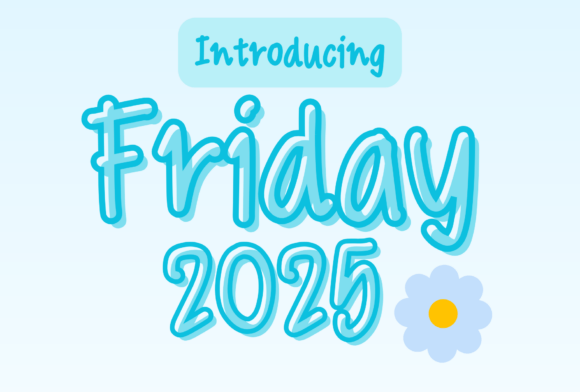
Introducing Friday 2025 Font: The Ultimate Handwritten Font for Digital Creations
In the realm of digital design, the right font can make all the difference. It can elevate your project from ordinary to extraordinary, adding a personal touch that resonates with your audience. If you’re on the hunt for a font that combines neatness, versatility, and a dash of personality, look no further than the Friday 2025 Font. This delightful handwritten font is perfect for a myriad of projects, from digital note-taking to crafting beautiful visual content. In this article, we’ll dive deep into the features and benefits of the Friday 2025 Font, exploring how it can become an indispensable part of your creative toolkit.
What is Friday 2025 Font?
Friday 2025 is a charming handwritten font designed with both functionality and aesthetics in mind. Its neat and clean appearance makes it highly legible, while its personal touch adds warmth and character to any text. This font is not just a typeface; it’s a way to infuse your digital creations with a sense of personality and approachability.
Versatility at Its Best
One of the standout features of the Friday 2025 Font is its incredible versatility. Whether you’re working on a digital project or a physical one, this font adapts seamlessly. Here are some of the many projects where Friday 2025 shines:
- Digital Note-taking: For those who love to take digital notes on their iPads or tablets, Friday 2025 is a game-changer. It brings a personal and organized feel to your notes, making study sessions or work notes more engaging and effective.
- Procreate and Digital Art: Artists and designers using Procreate will find Friday 2025 to be a fantastic addition to their toolkit. It can be used for adding text to artwork, creating quotes, or designing digital planners.
- Blog Posts and Articles: For bloggers and writers, this font offers a fresh and modern look. It can help set the tone for your content, making it more inviting to readers.
- Logos and Branding: For businesses looking to create a logo or revamp their branding, Friday 2025 offers a unique and memorable style that can help a brand stand out.
- Digital Planners, Invitations, and Greeting Cards: The font’s friendly and approachable vibe makes it perfect for creating digital planners, invitations, and greeting cards that feel personal and special.
- Photo Albums and Decorations: When it comes to digital photo albums or decorations, Friday 2025 can add a warm, personal touch, making your memories even more precious.
Supporting Multiple Languages
In a globalized world, content often reaches a diverse audience. The Friday 2025 Font is designed with this in mind, supporting multiple languages. This feature makes it an excellent choice for international brands, bloggers with a global following, or anyone looking to create content in multiple languages.
Perfect for iPads and GoodNotes
With the rise of digital note-taking and planning, tools like iPads and GoodNotes have become increasingly popular. The Friday 2025 Font is optimized for use on these platforms, offering a seamless experience for users. Its clean lines and neat appearance make it particularly well-suited for digital handwriting and typing on these devices.
Adding a Personal Touch to Your Designs
The true power of the Friday 2025 Font lies in its ability to add a personal touch to any design. In a digital age where communication can sometimes feel impersonal, this font helps you connect with your audience on a more personal level. Whether you’re creating educational content, personal projects, or professional materials, Friday 2025 brings a sense of warmth and approachability that’s hard to achieve with more traditional fonts.
Why Choose Friday 2025 Font?
With so many fonts available, why should you choose Friday 2025? Here are a few compelling reasons:
- Legibility: Despite its handwritten nature, Friday 2025 is highly legible, making it suitable for both digital and print projects.
- Versatility: Its wide range of applications means you can use it across various projects, making it a valuable addition to your font library.
- Personal Touch: It adds a unique and personal touch to your designs, helping you stand out in a crowded digital landscape.
- Multi-Language Support: For those working in multiple languages, Friday 2025’s support for various languages is a significant advantage.
Tips for Using Friday 2025 Font
The Friday 2025 Font is more than just a typeface; it’s a creative tool that can elevate your digital projects to new heights. Its neat appearance, versatility, and personal touch make it an excellent choice for a wide range of applications. Whether you’re a student, a professional, or simply someone who loves to create, Friday 2025 Font can help you achieve your goals with style and personality.